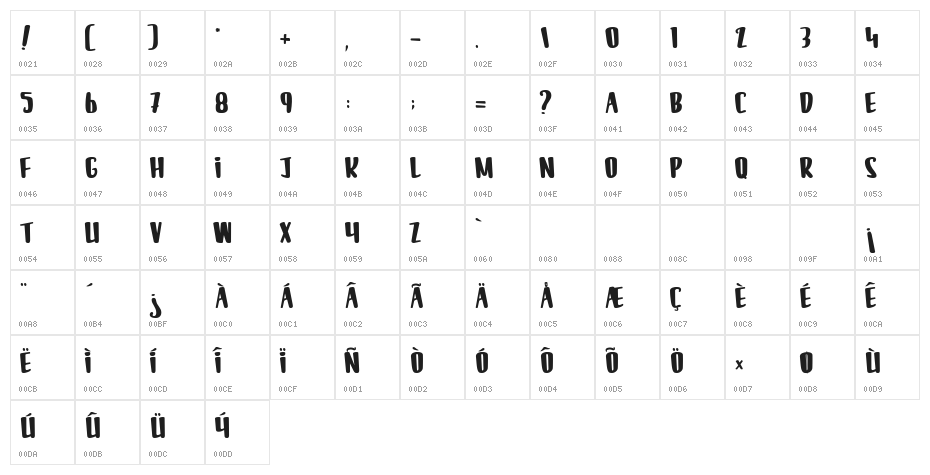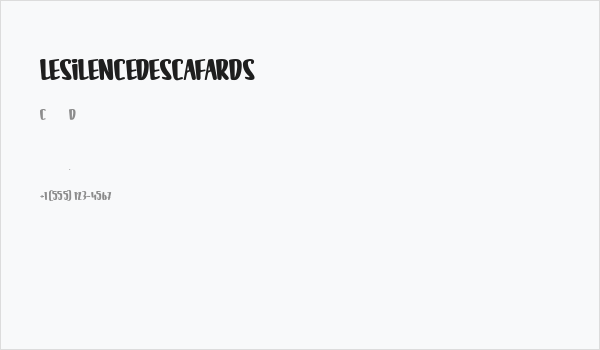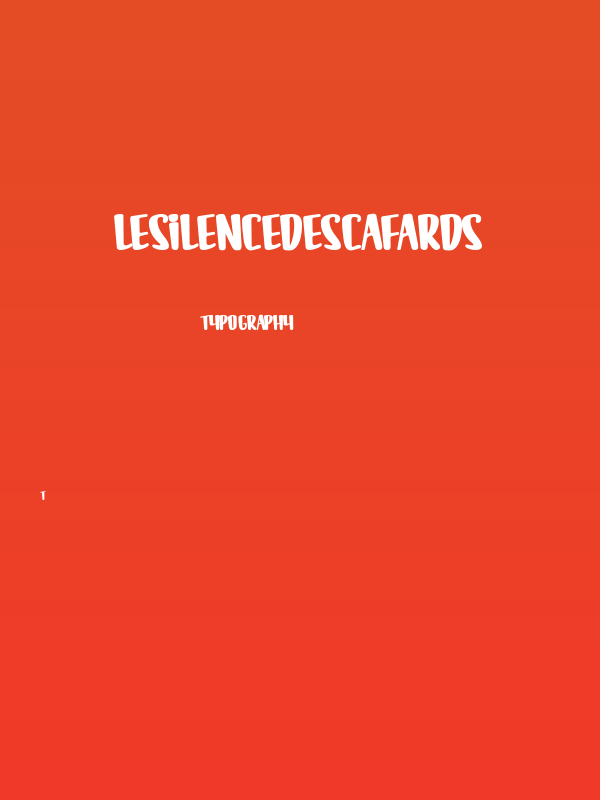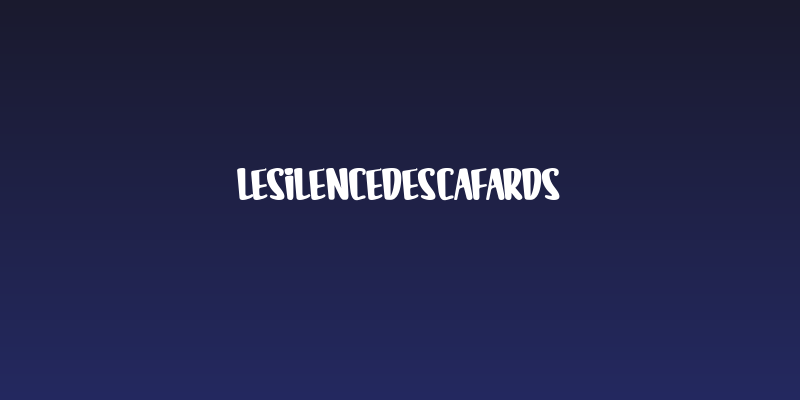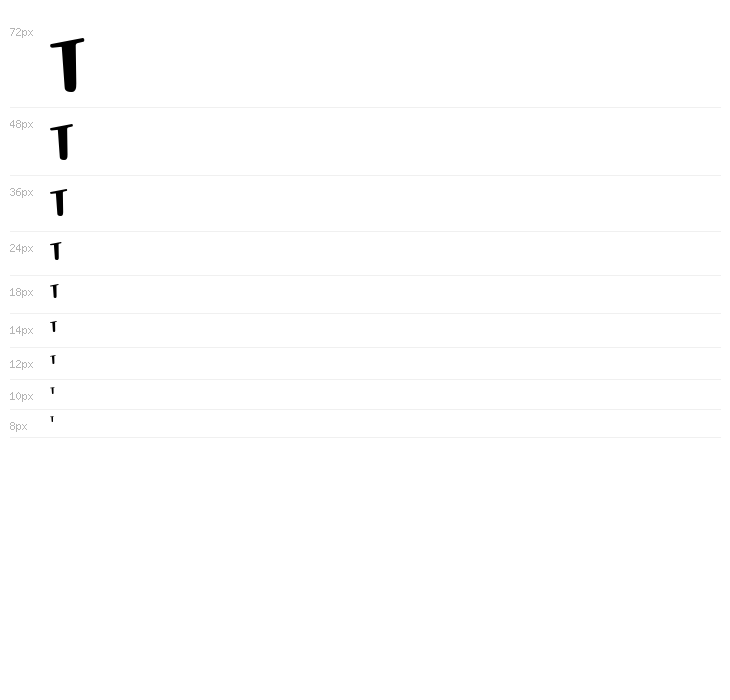
LESILENCEDESCAFARDS Font
This font exhibits a playful and bold style with rounded edges and a slightly irregular baseline, giving it a hand-drawn appearance. The uppercase letters are prominent and slightly condensed, while the lowercase letters maintain a consistent height, enhancing readability. The numbers are bold and match the playful style of the letters. Special characters are uniquely styled, adding to the font's quirky charm. This font is ideal for projects that require a fun and engaging aesthetic, such as children's books, posters, or creative branding materials.
Overall StylePlayful, Hand-drawn
Proposed ProjectsChildren's books, posters, creative branding, playful designs.